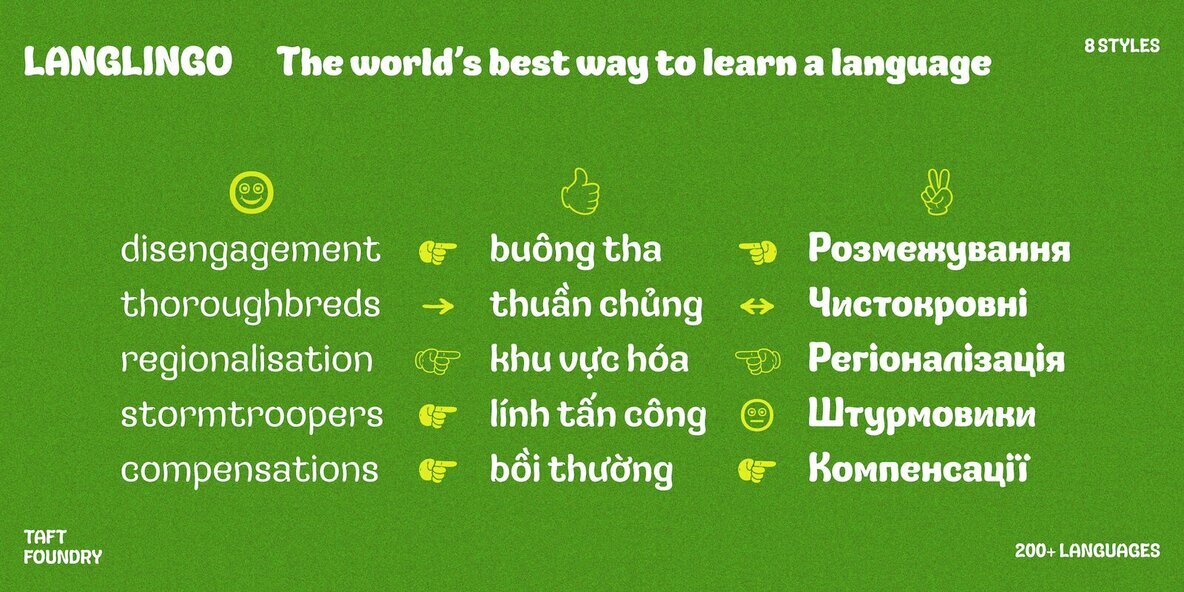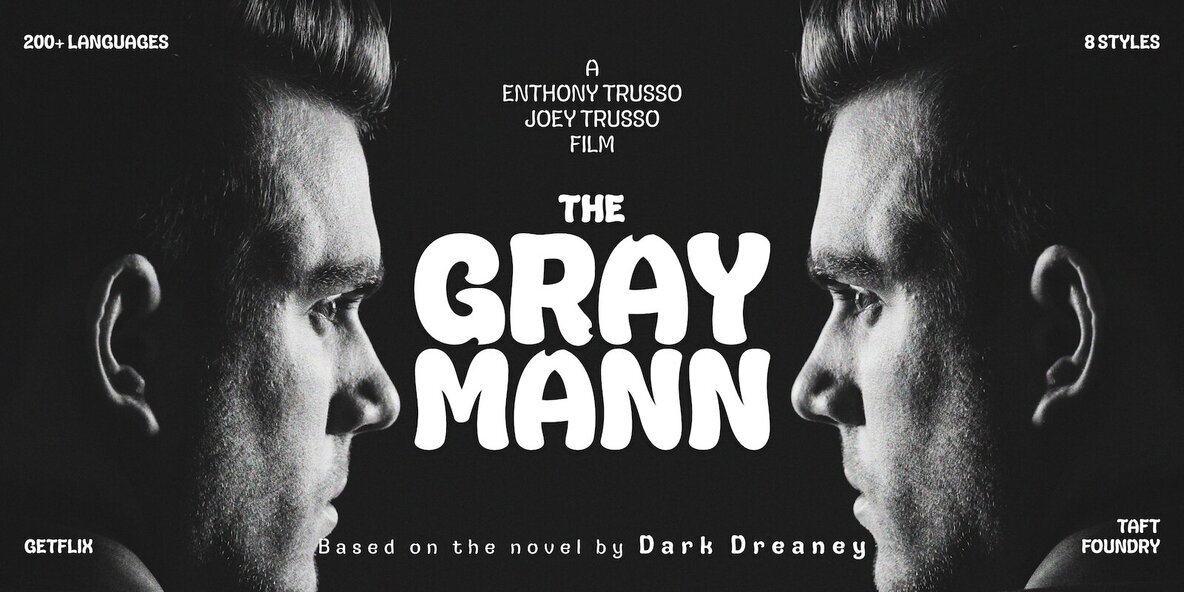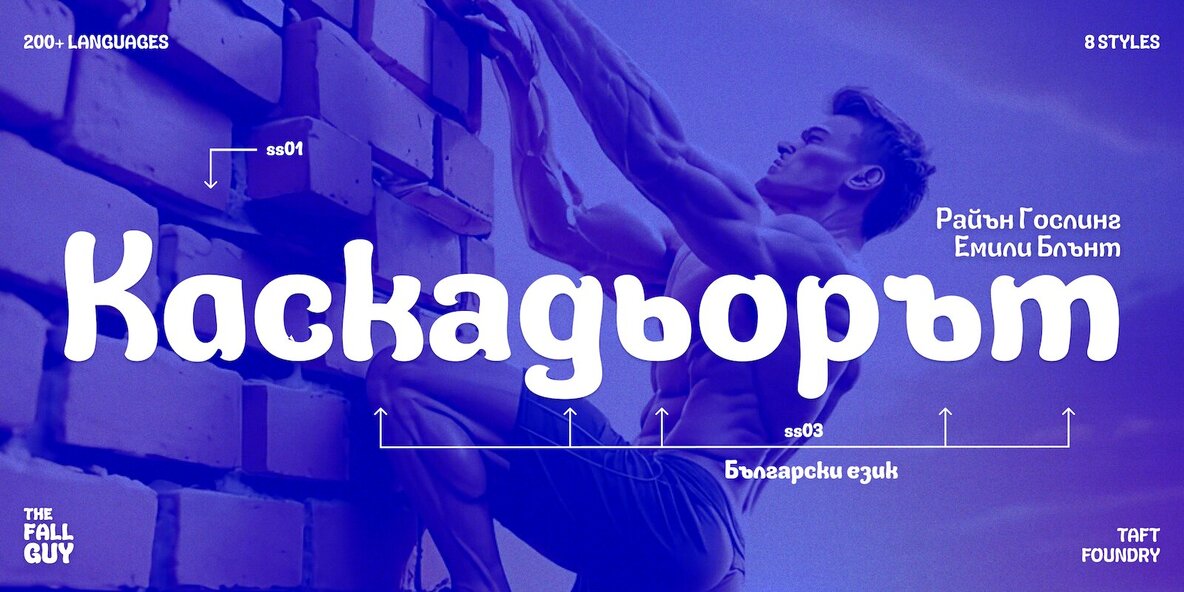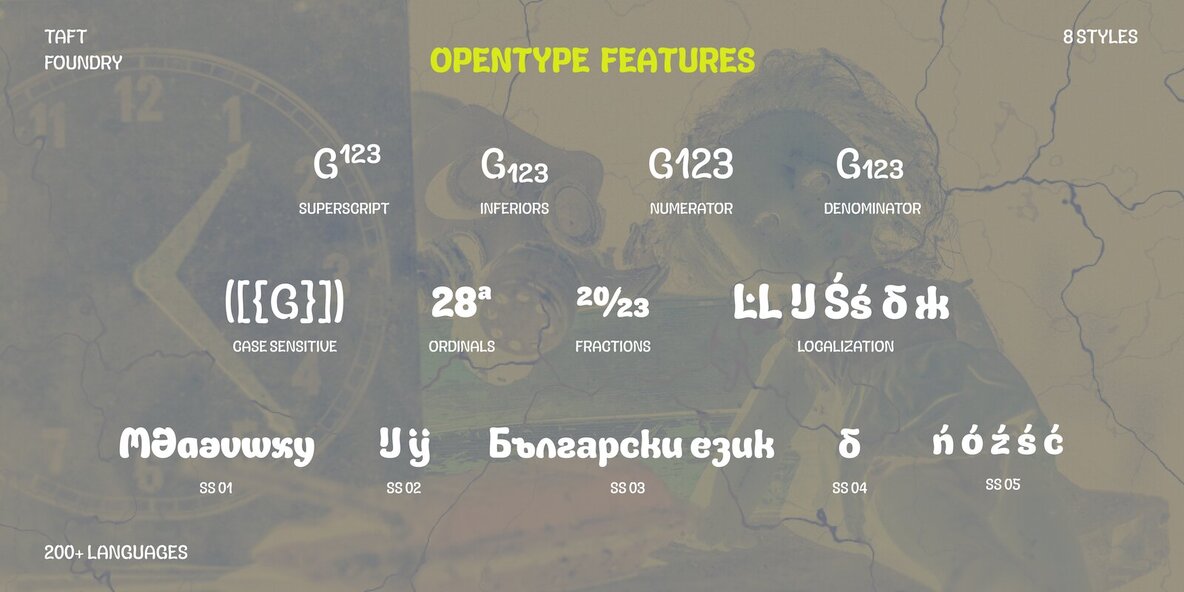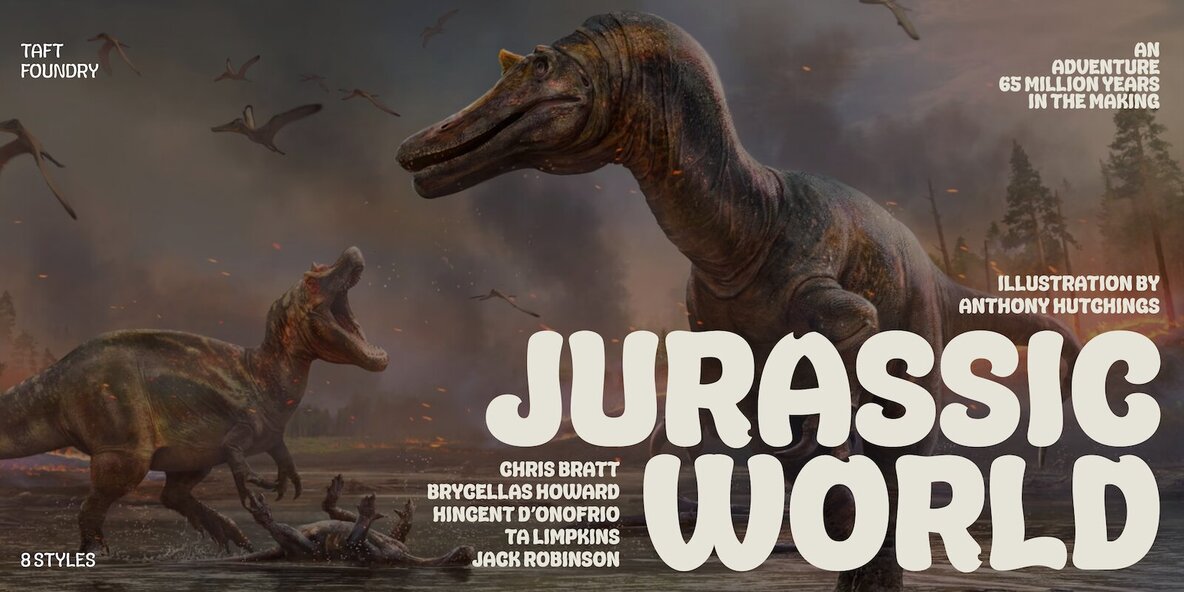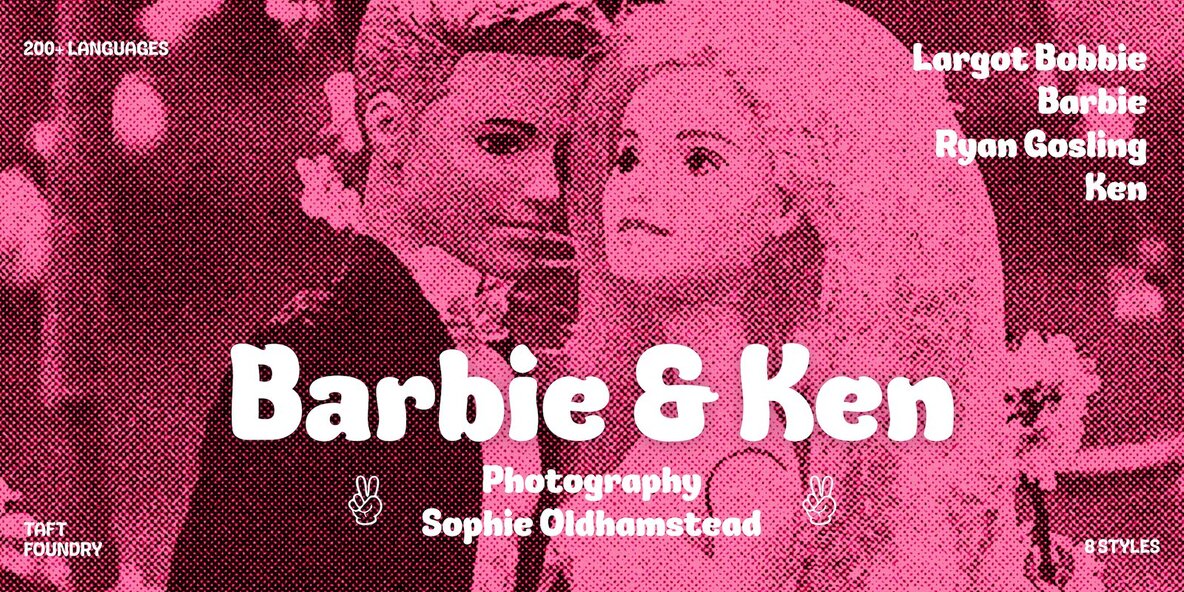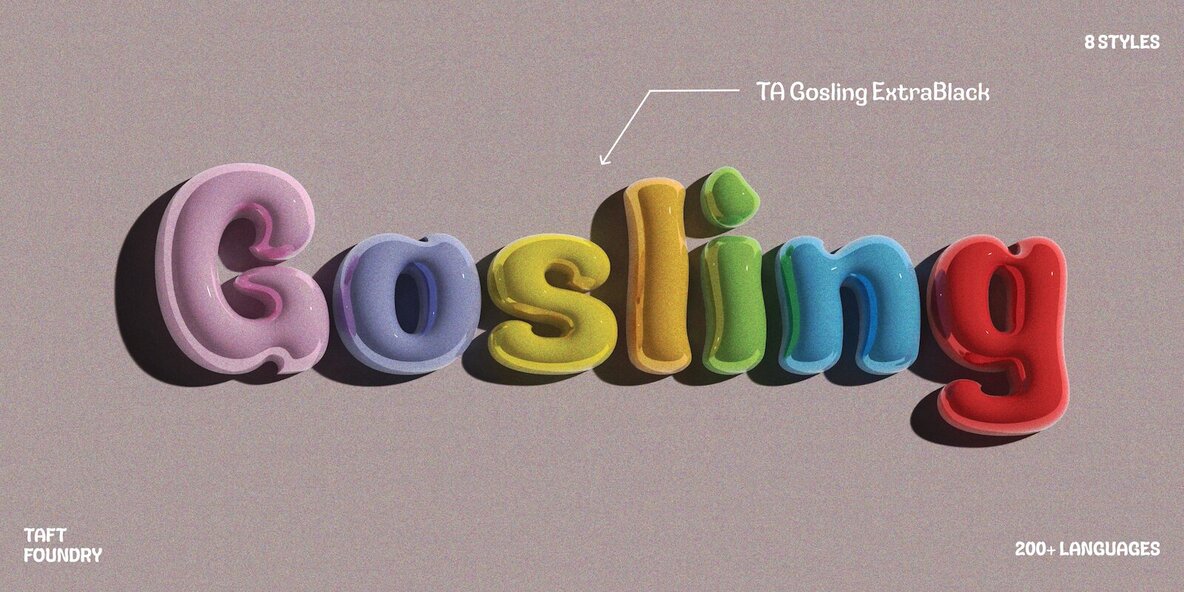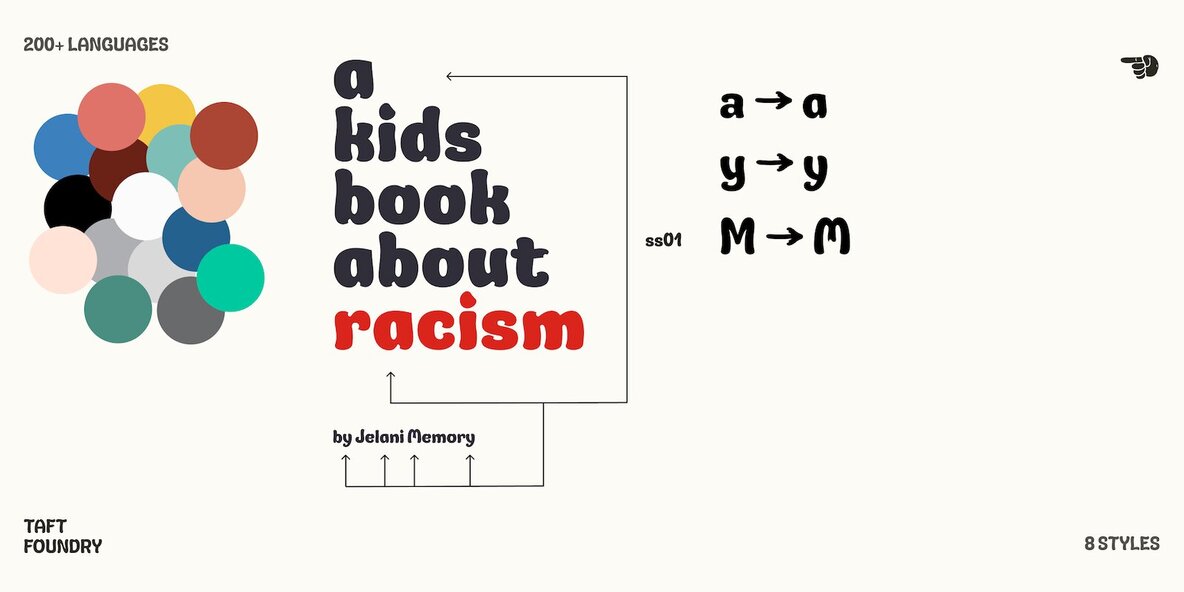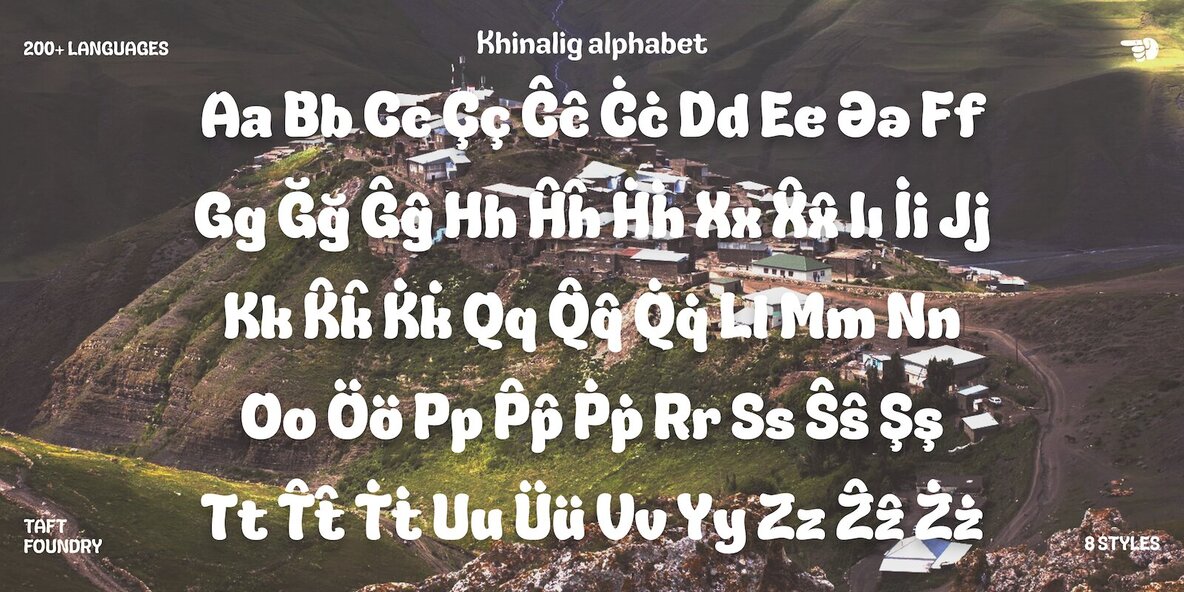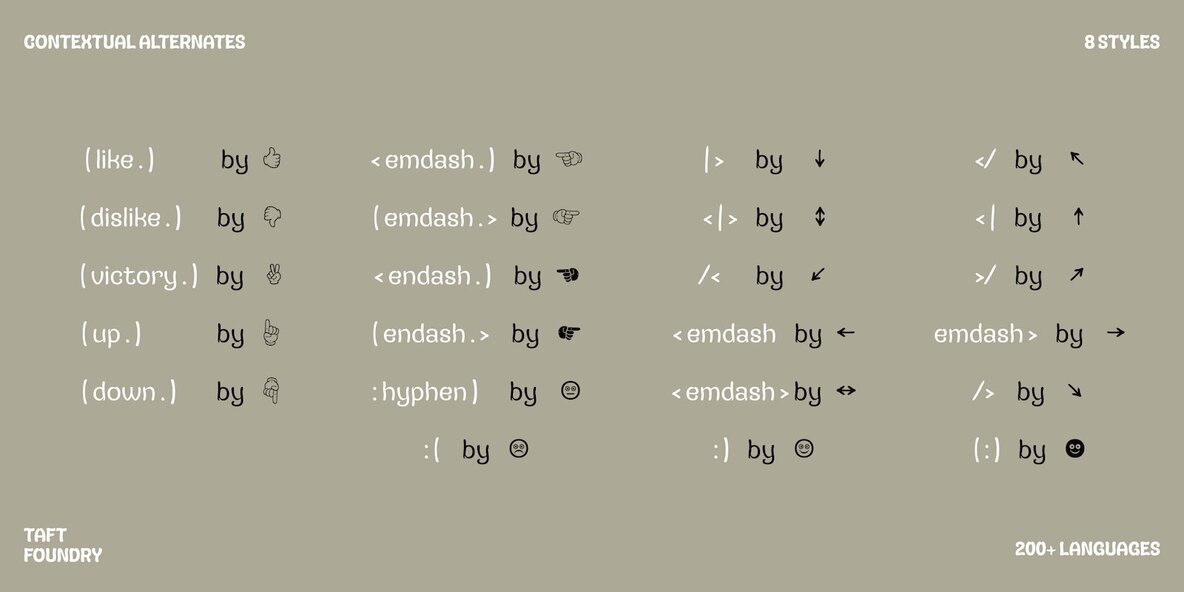
TA Gosling Font
TA Gosling is a font dedicated to the creativity and unique style of Ryan Gosling. This font, which combines retro and vintage charm with bold and legible design, pays tribute to Ryan Gosling's cinematic legacy. Created by Taft Foundry, this distinctive font is designed to attract attention and evoke a sense of nostalgia, making it ideal for various creative applications. Ryan Gosling's diverse and impactful roles, his powerful performances in films, and the complex characters he portrays are reflected in the aesthetic and functional features of this font. TA Gosling font comes in 8 styles, offering users a wider range of options for different projects. The impressive appearance of the TA Gosling font makes it a perfect choice for movie posters. Its bold and impactful style ensures that the headline remains the focal point, immediately capturing the audience's attention. For brands looking to create a unique and memorable identity, this font is an excellent choice. Its distinctive look helps create attractive and recognizable logos. The unique design of the TA Gosling font makes it ideal for enhancing the visual identity of your brand. Whether for print or digital media, TA Gosling font can make advertisements more attractive. Its strong visual presence enhances the appeal of promotional materials, drawing potential customers' attention to the main messages. This font's impactful design makes your advertisements more memorable. Magazines, brochures, and book covers can benefit from the retro aesthetic of the TA Gosling font. Its unique character adds a touch to editorial designs, making them more appealing and readable. This font helps add a unique touch to your editorial materials. The TA Gosling font can also be used for web design for headlines and banners. Its legibility and style help create a compelling and attractive visual hierarchy on web pages. The visual appeal of the TA Gosling font makes your websites more engaging. Language Support TA Gosling font comes with extensive language support, including: Latin and Vietnamese Scripts: Comprehensive support for all languages using Latin and Vietnamese scripts, providing versatility and ease of use across different regions. Cyrillic Script: Full support for languages using the Cyrillic script, ensuring perfect compatibility with Russian, Bulgarian, Ukrainian, Macedonian, and other Cyrillic-based languages. With its extensive language support, the TA Gosling font is a versatile choice for global use, meeting various linguistic needs. Supporting over 200 languages, this font allows you to share your projects with a wide audience.